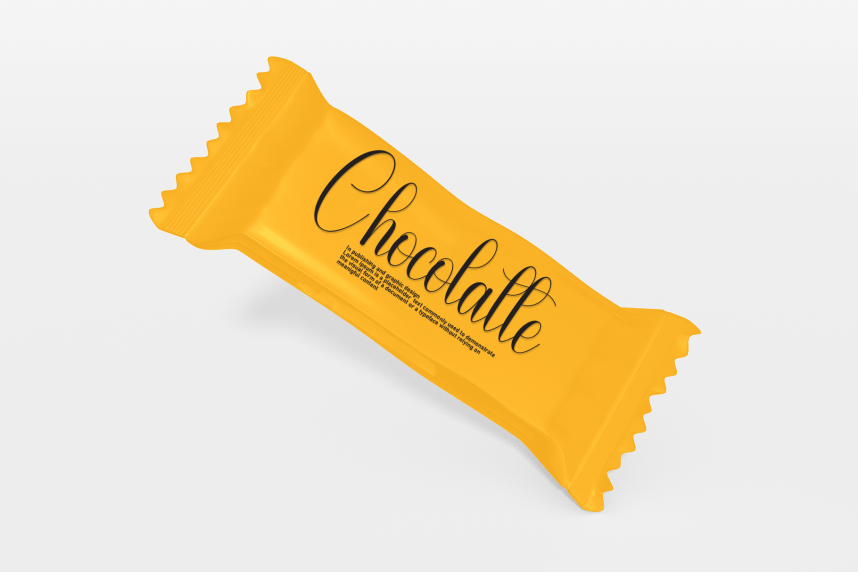
Starboy Calligraphy Script Font
Starboy Calligraphy Script Font is a sweet and friendly handwritten display font. Cute and fun, this font is ideal for writing wedding invitations, cards, or any other design that might need a playful touch!